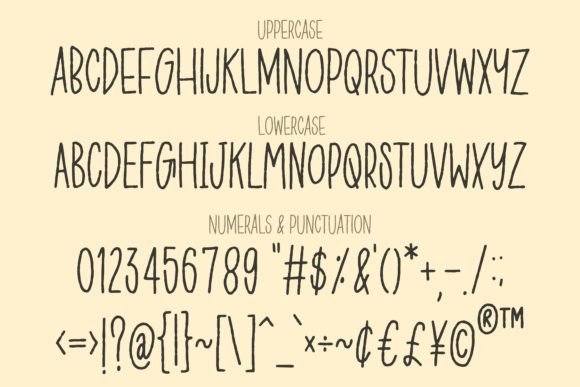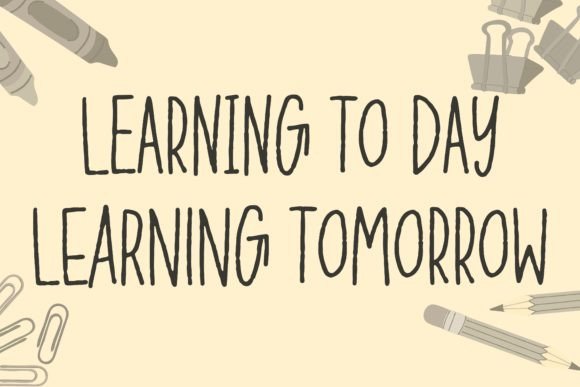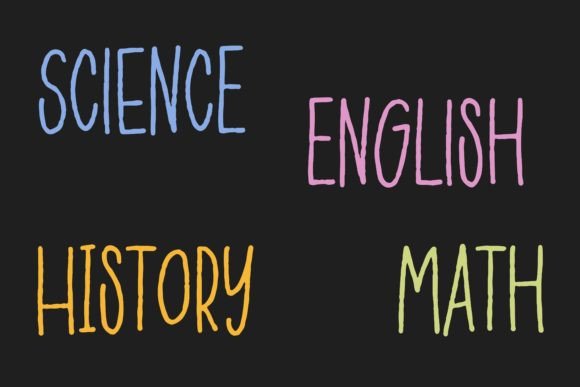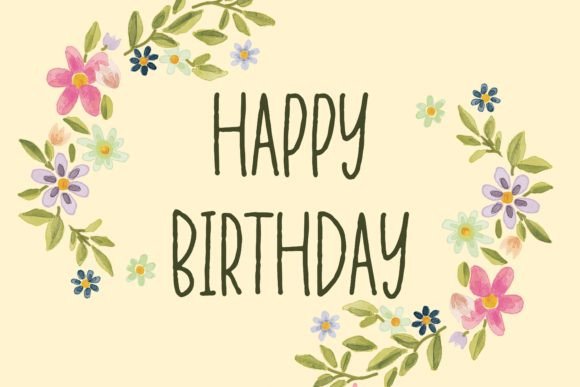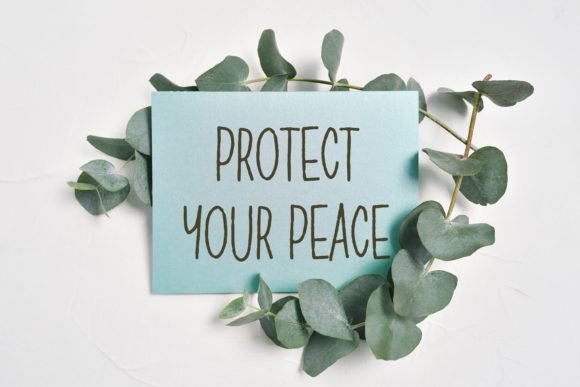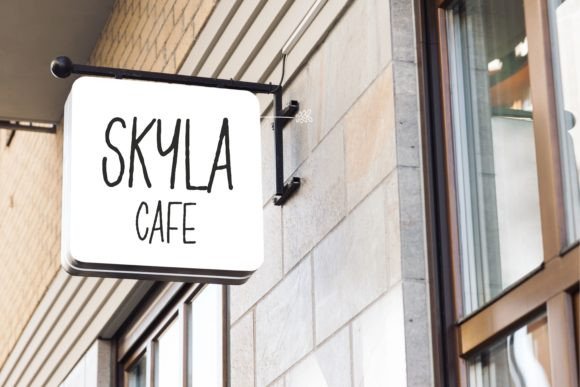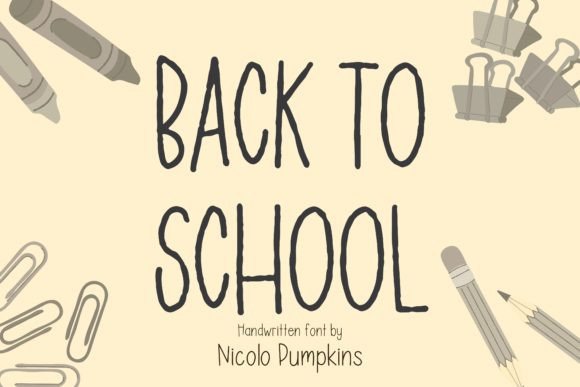
Back to School Font: The Perfect Handwritten Font for Informal Designs
As the new school year approaches, designers and crafters are on the lookout for the perfect font to create engaging and fun back-to-school designs. Look no further than the Back to School Font, a friendly handwritten font that’s perfect for a variety of informal designs. In this article, we’ll explore the features and benefits of this versatile font and how it can be used to create stunning designs for teachers, students, and crafters alike.
What is Back to School Font?
Back to School Font is a carefully crafted handwritten font that’s designed to capture the spirit of informality and friendliness. Its unique and playful style makes it perfect for creating eye-catching designs that are sure to stand out. Whether you’re designing for back-to-school, teachers, students, or just creating informal designs, this font is sure to impress.
Key Features of Back to School Font
- Handwritten style: Back to School Font boasts a beautiful handwritten style that’s perfect for creating informal designs that are warm and inviting.
- Versatility: This font is incredibly versatile and can be used for a wide range of designs, including t-shirts, tote bags, hats, stickers, wedding designs, logos, cards, quotes, and more.
- Easy to read: The font is clear and easy to read, making it perfect for designs that require a personal touch.
- Unique and playful: Back to School Font has a unique and playful style that’s sure to add a touch of personality to your designs.
Uses for Back to School Font
Back to School Font is perfect for a variety of designs, including:
- Back-to-school designs: Create eye-catching posters, flyers, and brochures for the new school year.
- T-shirts and apparel: Design custom t-shirts, hoodies, and other apparel for students, teachers, and school staff.
- Tote bags and accessories: Create reusable tote bags, stickers, and other accessories that are perfect for school and beyond.
- Wedding designs: Use Back to School Font to create beautiful wedding stationery, signs, and decorations.
- Logos and branding: Create custom logos and branding materials for schools, educational institutions, and businesses.
- Cards and quotes: Design beautiful greeting cards, inspirational quotes, and social media graphics.
Back to School Font offers a range of benefits for designers and crafters, including:
- Time-saving: With its clear and easy-to-read style, Back to School Font saves you time and effort when creating designs.
- Customization: The font’s versatility allows you to experiment with different styles and designs to create something truly unique.
- Professional-looking designs: Back to School Font helps you create professional-looking designs that are perfect for both personal and commercial use.
- Increased creativity: The font’s playful and unique style inspires creativity and encourages you to think outside the box.
| Font Name | Back to School Font |
| Author | Nicolo Pumpkins |